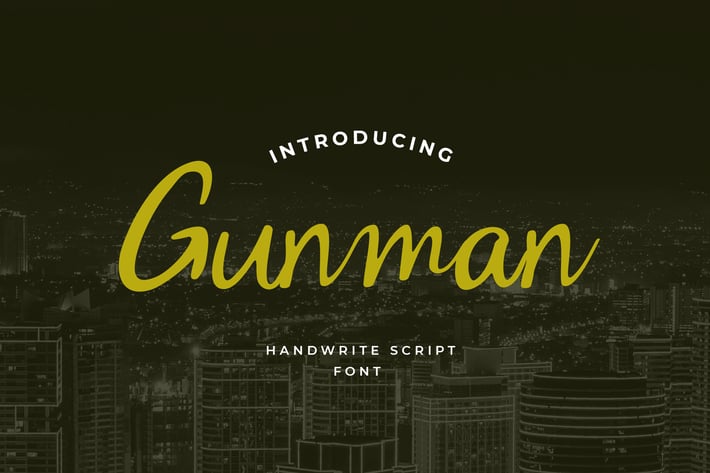
Gunman Handwritten Font
Gunman is casual handwritten font, this font come with rounded style. perfect for your personal branding and any awesome project, such as : logos, posters, covers, main packaging, t-shirts, business cards, wedding cards and more, so what are you waiting for?